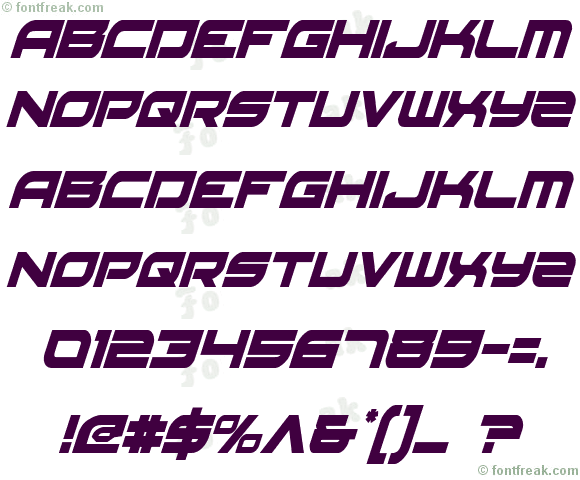
Red Rocket Condensed Italic
Red Rocket Condensed Italic is a striking display font designed by Daniel Zadorozny, falling within the category of decorative typefaces. This font boasts a unique condensed style that exudes a modern and dynamic feel, making it perfect for a variety of creative projects. The italicized design features bold strokes that convey energy and movement, while the condensed form allows for efficient use of space, making it highly versatile.
Visually, Red Rocket Condensed Italic showcases a strong stroke weight with minimal contrast, providing a uniform appearance that enhances readability. The letterforms are slightly extended, and the overall spacing is tight, which contributes to a cohesive look. The font's sharp angles and geometric shapes give it a contemporary edge, making it an eye-catching choice for any design.
This font is particularly well-suited for use cases such as movie posters, where it can effectively capture attention and convey a sense of excitement. It also works wonderfully for branding efforts, especially for businesses in tech or entertainment. Additionally, Red Rocket Condensed Italic can elevate restaurant menus, adding a modern flair that aligns with trendy dining experiences. Graphic designers and small business owners will find this font an excellent tool for creating standout graphics and promotional materials.